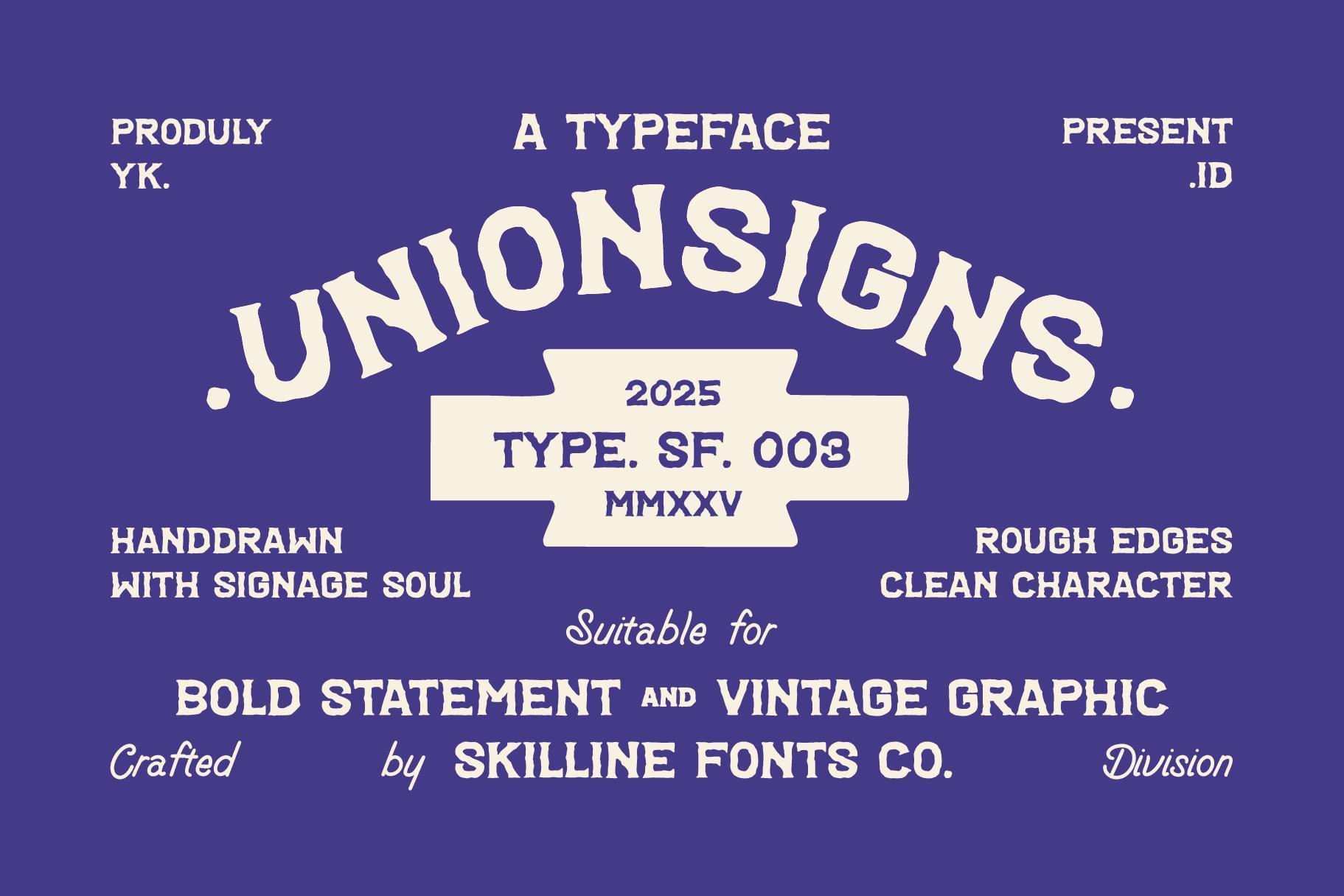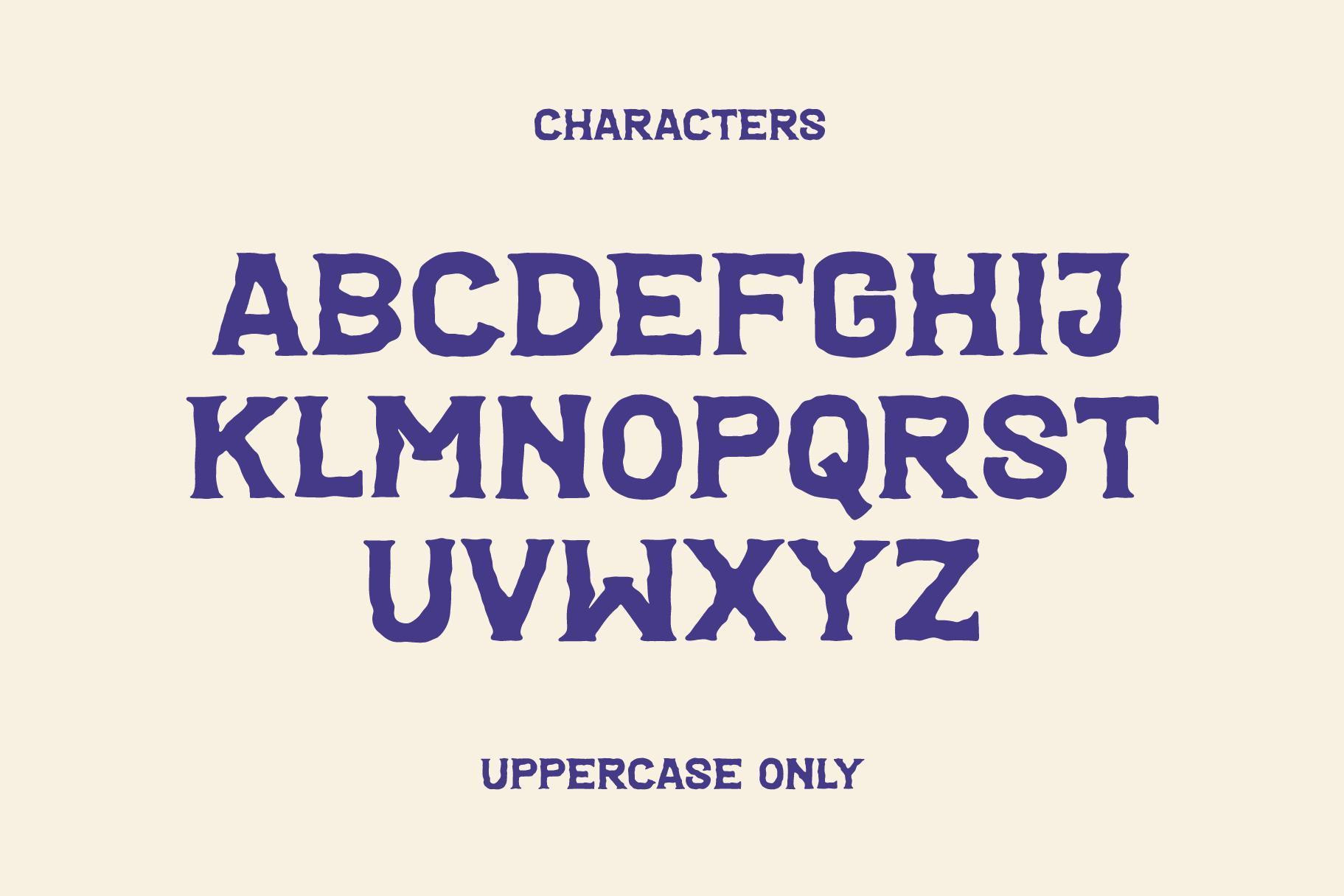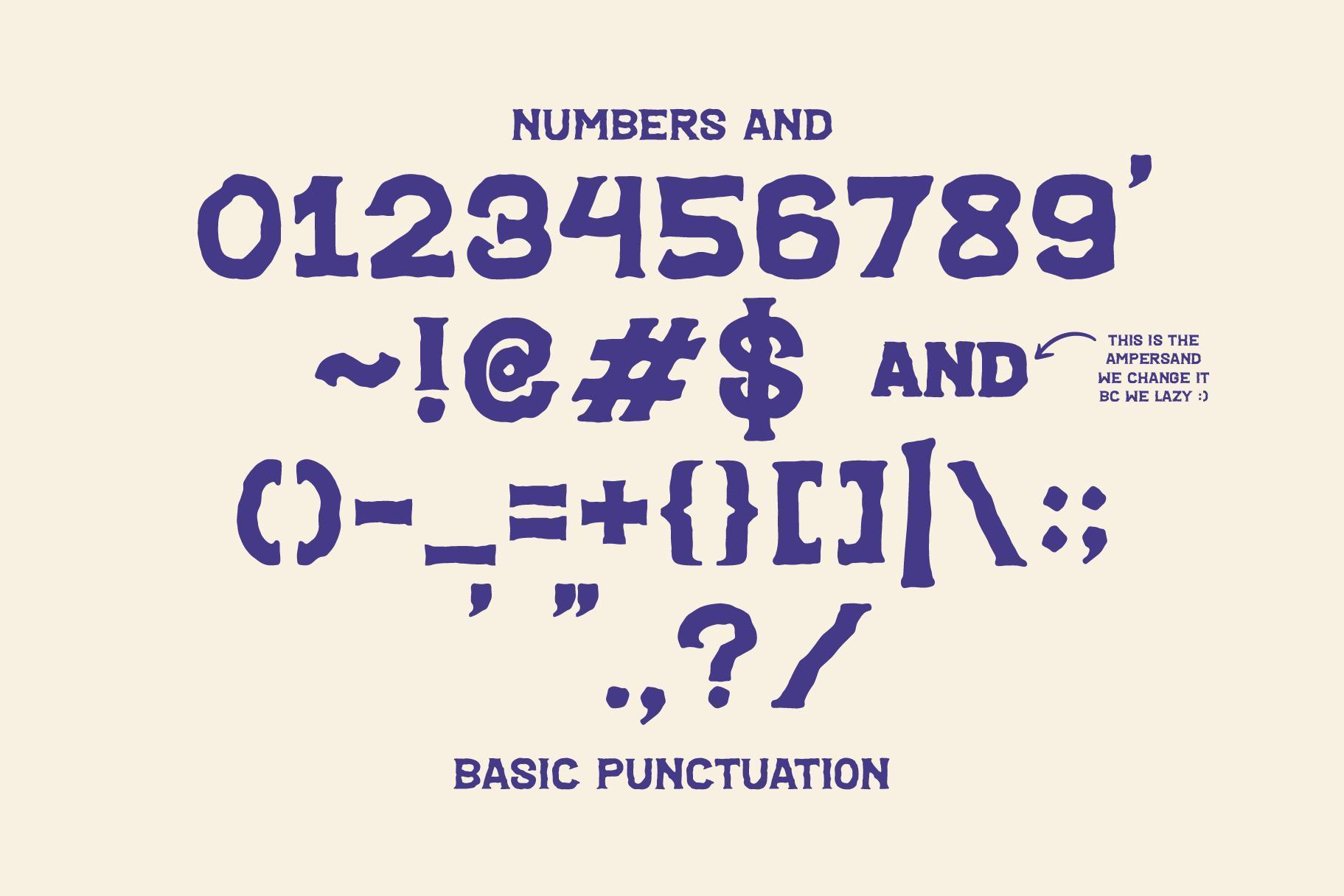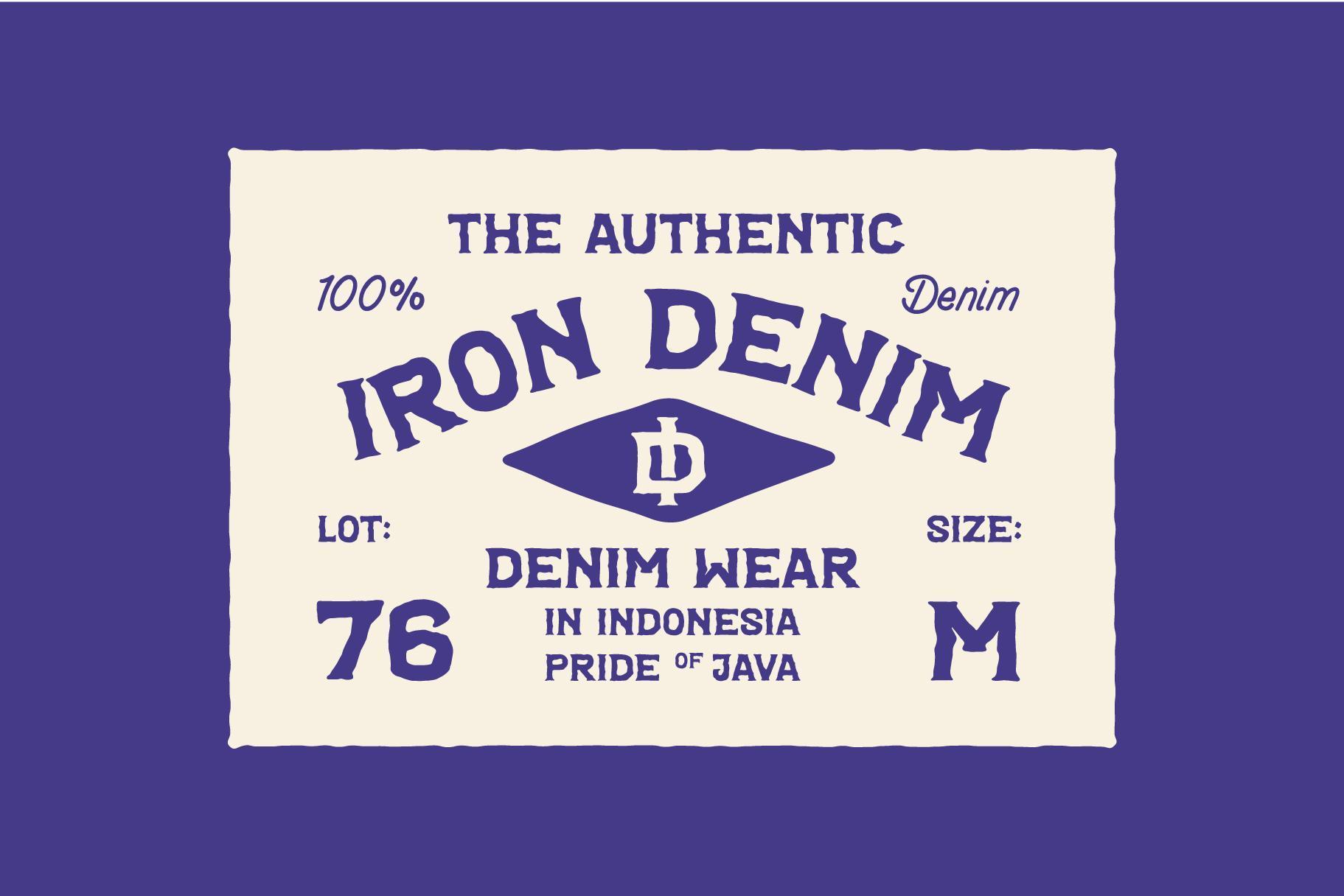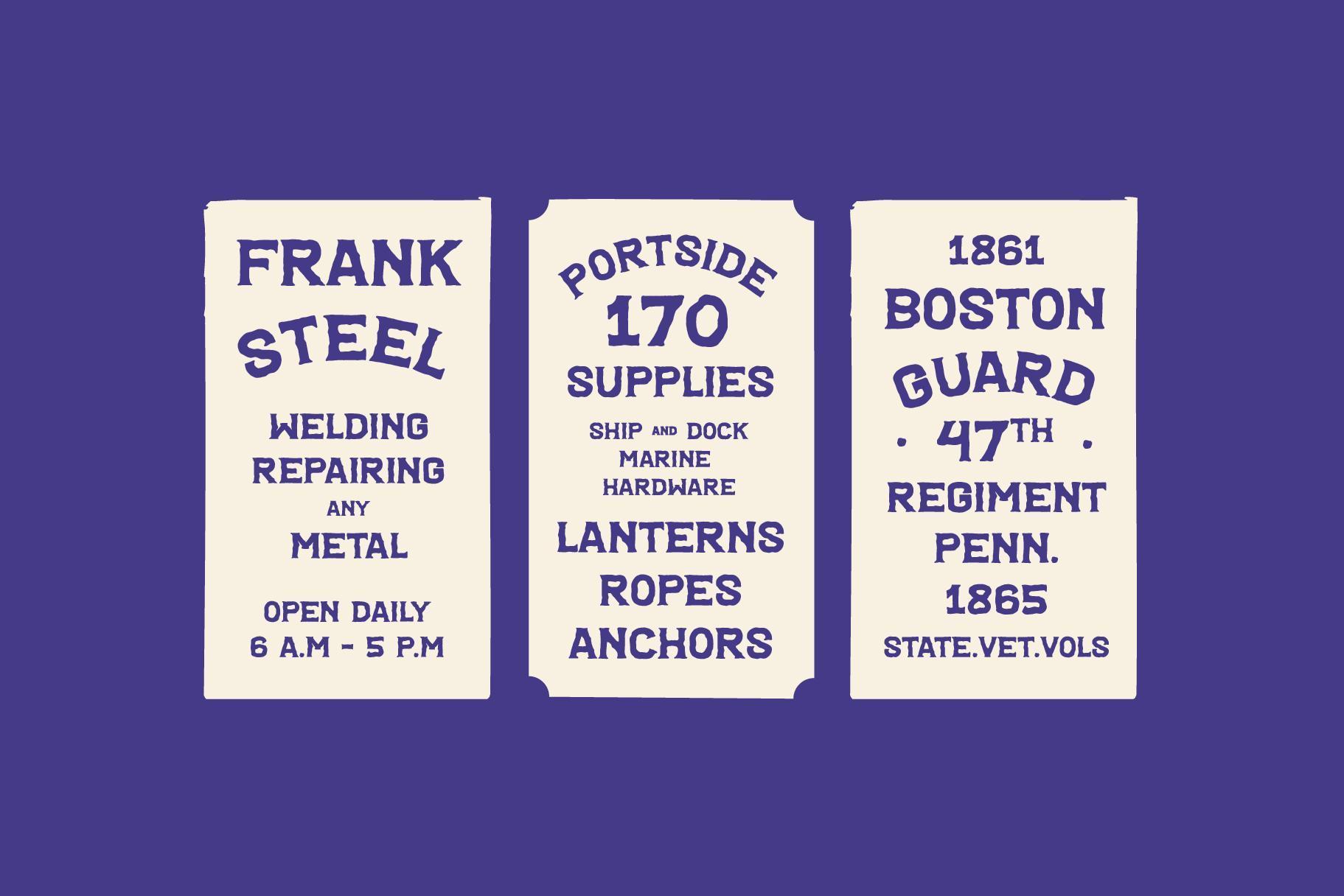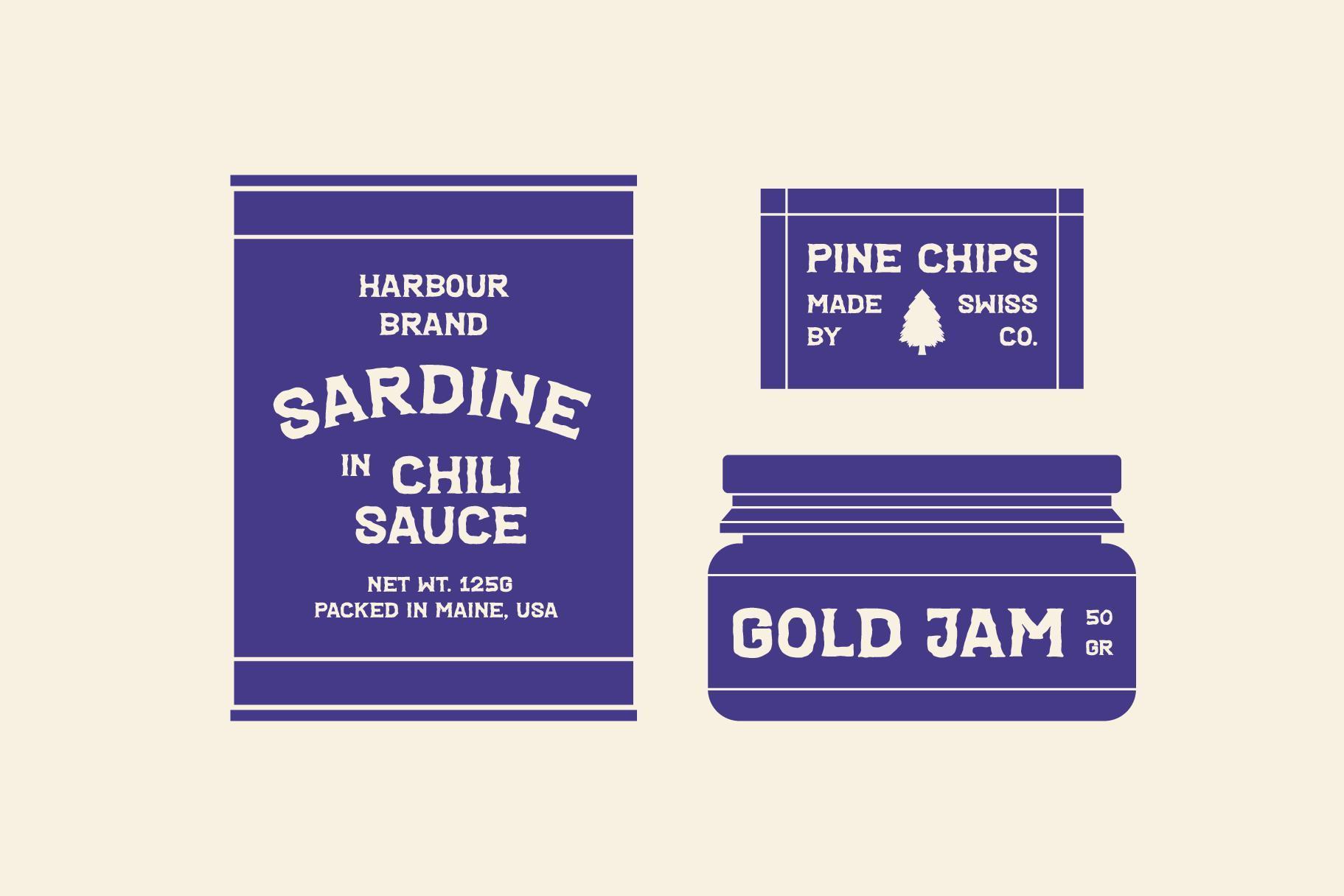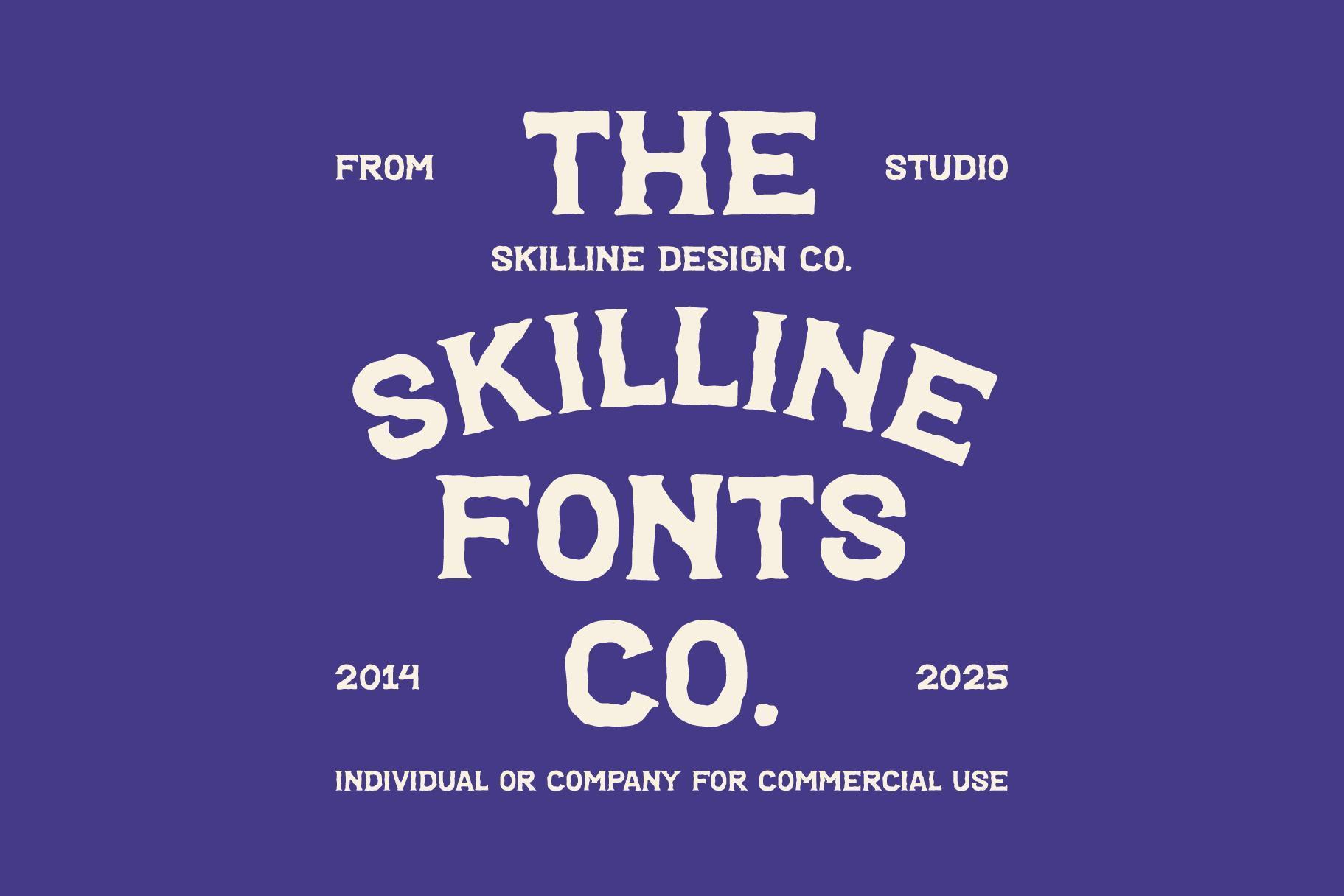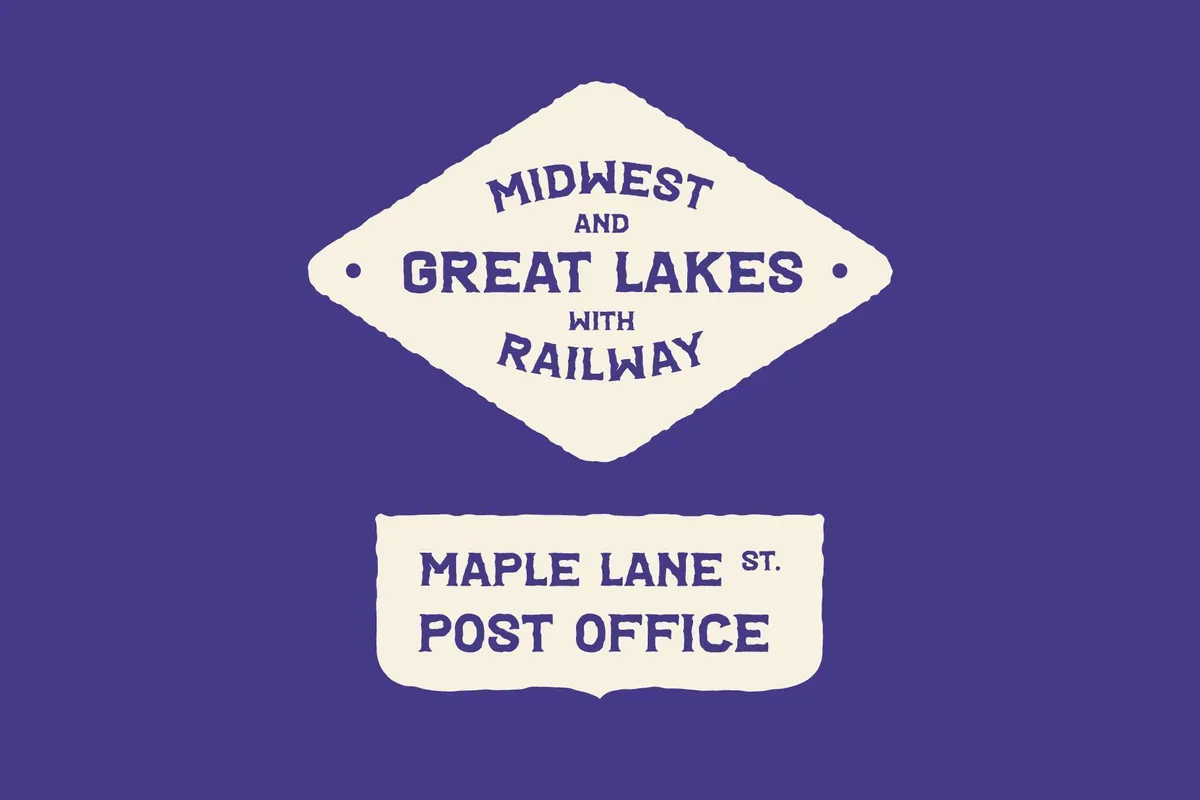
Unionsigns - Bold Vintage Font
SFC-Unionsign
UnionSigns is a hand-drawn display font inspired by classic vintage signage , crafted with bold strokes, rugged edges, and a timeless handmade feel. Designed for modern branding with a retro twist, it strikes the perfect balance between authentic grit and strong readability. Whether you’re building bold packaging, designing logos, or creating striking posters, UnionSigns brings instant character to your work.
Its all-caps design with handcrafted imperfections gives it a distinctive artisanal quality, making it perfect for logos, labels, posters, badges, and merchandise. The slightly irregular strokes ensure no two designs feel the same, giving every project a unique personality.